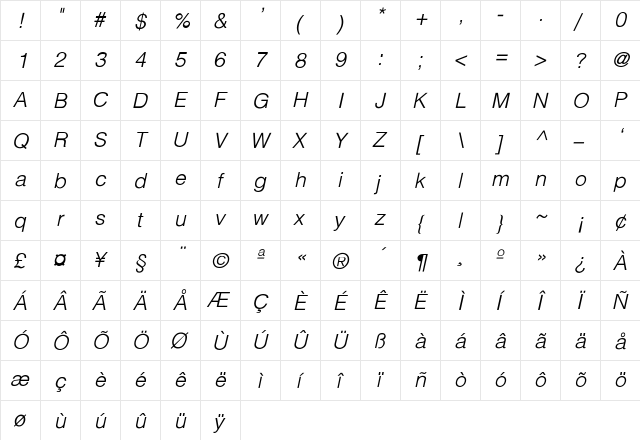
Partridge-Light-Light-Italic Regular
Design Context for Partridge-Light-Light-Italic Typeface
Partridge-Light-Light-Italic is a composed and adaptable typeface that performs quietly and consistently across a wide range of design contexts. The dynamic lean of this cut emphasises speed and emphasis in any layout. The delicate stroke weight brings airiness and refinement to layouts.